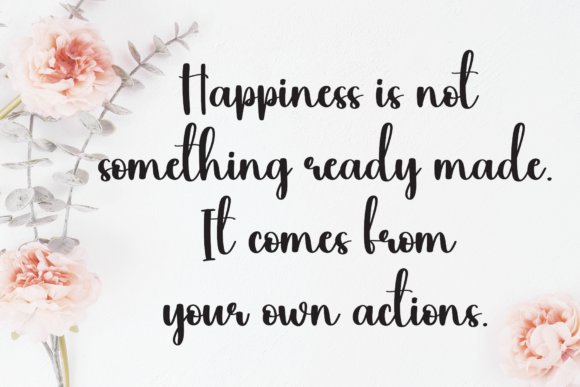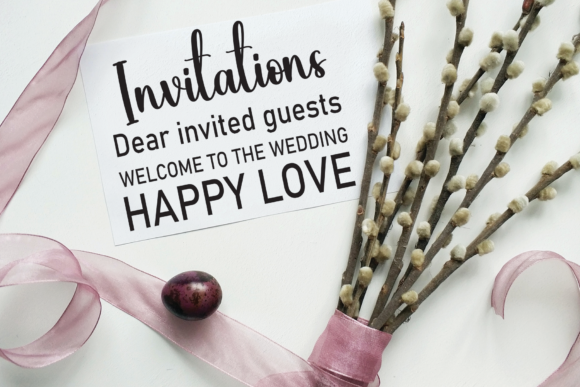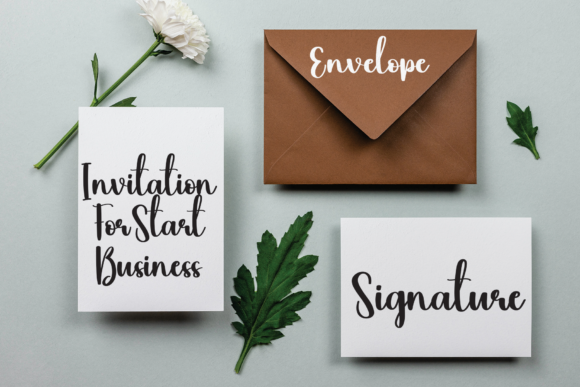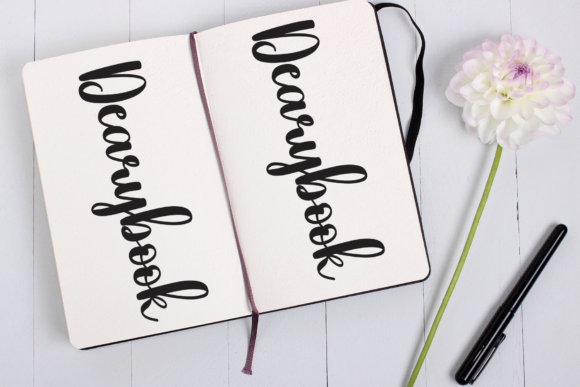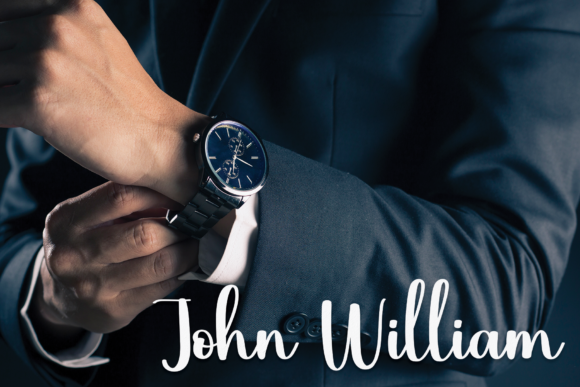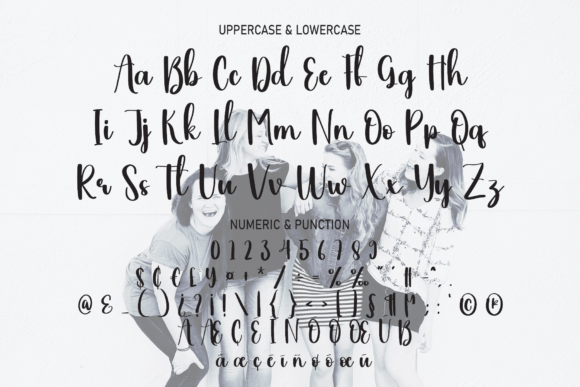
Introducing Friends Font: The Delicate and Fashionable Script Font for Your Branding Needs
Are you a designer or crafter looking for a font that can elevate your branding projects to the next level? Look no further than Friends Font, a delicate and fashionable script font that is perfect for a variety of applications. In this article, we’ll take a closer look at Friends Font and explore its features, benefits, and uses.
What is Friends Font?
Friends Font is a beautifully designed script font that exudes elegance and sophistication. Its delicate strokes and flowing curves make it perfect for creating stunning logos, t-shirt designs, and other creative products. Whether you’re working on a branding project for a fashion brand, a beauty company, or a lifestyle business, Friends Font is an excellent choice.
Key Features of Friends Font
So, what makes Friends Font so special? Here are some of its key features:
- Delicate and Fashionable: Friends Font has a delicate and fashionable design that will add a touch of elegance to any project.
- Script Style: The font features a beautiful script style that is perfect for creating logos, t-shirt designs, and other creative products.
- Versatile: Friends Font is highly versatile and can be used in a variety of contexts, from branding and advertising to packaging and more.
- Easy to Read: Despite its delicate design, Friends Font is easy to read and understand, making it perfect for use in body text and headlines.
Benefits of Using Friends Font
So, why should you choose Friends Font for your branding projects? Here are some of the benefits of using this beautiful font:
- Stand Out from the Crowd: Friends Font is a unique and stylish font that will help your branding projects stand out from the crowd.
- Professional Look: The font’s delicate design and elegant curves will give your projects a professional look that’s sure to impress.
Uses of Friends Font
Friends Font is a versatile font that can be used in a variety of contexts. Here are some of the ways you can use this beautiful font:
- Logo Design: Friends Font is perfect for creating stunning logos for your branding projects.
- T-Shirt Printing: The font’s script style and delicate design make it ideal for t-shirt printing and other apparel.
- Creative Products: Friends Font can be used to create a variety of creative products, such as stickers, labels, and more.
- Branding and Advertising: The font’s elegant design and easy readability make it perfect for use in branding and advertising materials.
Tips for Using Friends Font
Here are some tips for using Friends Font in your branding projects:
- Use it Sparingly: Friends Font is a delicate font, so use it sparingly to avoid overwhelming your design.
- Pair it with Other Fonts: The font pairs well with other fonts, so experiment with different combinations to find the perfect look.
- Adjust the Size: Adjust the size of the font to suit your design needs, but be careful not to make it too small or too large.
In conclusion, Friends Font is a beautiful and versatile script font that is perfect for a variety of branding projects. Its delicate design, elegant curves, and easy readability make it an excellent choice for designers and crafters. Whether you’re working on a logo design, t-shirt printing, or creative products, Friends Font is sure to elevate your projects to the next level.